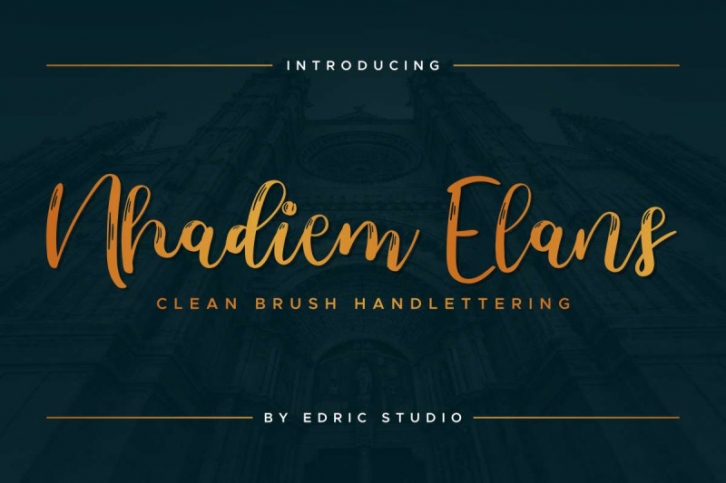
Please meet our newest awesome type : Nhadiem Elans Font.
This font has a stunning calligraphy style with a rough dry brush effect. Completed with many alternatives characters glyphs. It also has mutliple languages international glyphs.
Nhadiem Elans Font. was made in 2019 from Bandung and Garut Indonesia by our artists : Fajar Saepul and Sarah Suci.
You can explore any of your projects with the exclusive glyphs of Nhadiem Elans Font. This font will be awesome for any clients, products or projects : Logo type (extended license), flyer, stationery, business card, signage, flyer, brochure etc. With your great creativity, there’s no limit creation using with this font. This font matchs all categories professionals : law firm, real estate, wedding, advertisement, florist, makeup artist, musician, etc